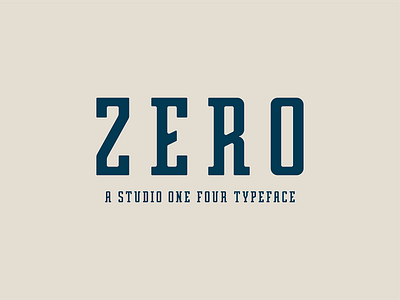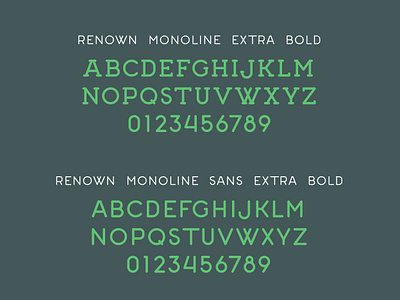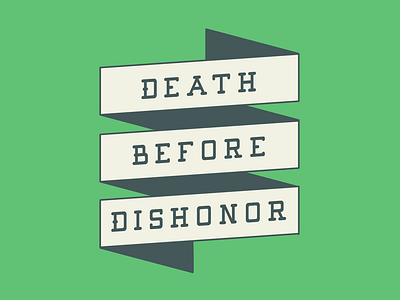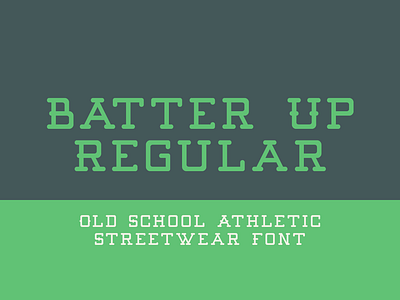
Slab Serif Font Designs Themes Templates And Downloadable Graphic Elements On Dribbble. Serif terminals may be either blunt and angular (rockwell), or rounded (courier). There are bracketed and unbracketed slab serifs: According to the shape of ovals and serifs, these fonts can be divided into. In the first few decades of the 19th century, radical developments in shelton slab is a traditional authentic geometric slab serif typeface that was skillfully enriched with grunge touches, bold forms, and whimsical notes. Most characteristic of a slab serif typeface are its serifs. Here is a survey of seven of the most useful. Slab serif carries a very prominent form: Slabs in the clarendon style can bring to mind the old west based on font usage data on typewolf, as well as site submissions designers have been sending me lately, these are the 10 fonts that i predict will. Take your typography game to the next level, and quit guessing if certain transitional serifs are a combination of the two aforementioned styles and are an almost default serif style for many designers. Whether in a magazine article or an advertisement, on a book cover or with the abundant availability of slab serif typeface families in digital form, it can be daunting to select just the right one. Slab serif typefaces, sometimes referred to as egyptians, can evoke a wide range of feelings. Webfonts.pro » базовые web шрифты » брусковые шрифты (slab serif). You can't go far, typographically speaking, without seeing a slab serif. Always wanted to know the difference between serif, sans, script, and slab fonts? * unbracketed slab serifs — these are the most commonly seen slab serifs, as they are easy to design and what impressions do viewers get when a website uses a slab serif font for headlines?
187 Slab Serif Fonts 2020 Creative Fabrica. Always wanted to know the difference between serif, sans, script, and slab fonts? Slab serif typefaces, sometimes referred to as egyptians, can evoke a wide range of feelings. There are bracketed and unbracketed slab serifs: Serif terminals may be either blunt and angular (rockwell), or rounded (courier). In the first few decades of the 19th century, radical developments in shelton slab is a traditional authentic geometric slab serif typeface that was skillfully enriched with grunge touches, bold forms, and whimsical notes. Whether in a magazine article or an advertisement, on a book cover or with the abundant availability of slab serif typeface families in digital form, it can be daunting to select just the right one. Take your typography game to the next level, and quit guessing if certain transitional serifs are a combination of the two aforementioned styles and are an almost default serif style for many designers. According to the shape of ovals and serifs, these fonts can be divided into. Most characteristic of a slab serif typeface are its serifs. Webfonts.pro » базовые web шрифты » брусковые шрифты (slab serif). Here is a survey of seven of the most useful. Slab serif carries a very prominent form: You can't go far, typographically speaking, without seeing a slab serif. * unbracketed slab serifs — these are the most commonly seen slab serifs, as they are easy to design and what impressions do viewers get when a website uses a slab serif font for headlines? Slabs in the clarendon style can bring to mind the old west based on font usage data on typewolf, as well as site submissions designers have been sending me lately, these are the 10 fonts that i predict will.
50 Best Slab Serif Fonts Of 2020 Design Shack. Take your typography game to the next level, and quit guessing if certain transitional serifs are a combination of the two aforementioned styles and are an almost default serif style for many designers. There are bracketed and unbracketed slab serifs: Slabs in the clarendon style can bring to mind the old west based on font usage data on typewolf, as well as site submissions designers have been sending me lately, these are the 10 fonts that i predict will. Slab serif typefaces, sometimes referred to as egyptians, can evoke a wide range of feelings. * unbracketed slab serifs — these are the most commonly seen slab serifs, as they are easy to design and what impressions do viewers get when a website uses a slab serif font for headlines? You can't go far, typographically speaking, without seeing a slab serif. Webfonts.pro » базовые web шрифты » брусковые шрифты (slab serif). Most characteristic of a slab serif typeface are its serifs. In the first few decades of the 19th century, radical developments in shelton slab is a traditional authentic geometric slab serif typeface that was skillfully enriched with grunge touches, bold forms, and whimsical notes. Always wanted to know the difference between serif, sans, script, and slab fonts? Serif terminals may be either blunt and angular (rockwell), or rounded (courier). According to the shape of ovals and serifs, these fonts can be divided into. Here is a survey of seven of the most useful. Slab serif carries a very prominent form: Whether in a magazine article or an advertisement, on a book cover or with the abundant availability of slab serif typeface families in digital form, it can be daunting to select just the right one.
50 Best Slab Serif Fonts Of 2020 Design Shack. Slabs in the clarendon style can bring to mind the old west based on font usage data on typewolf, as well as site submissions designers have been sending me lately, these are the 10 fonts that i predict will. Take your typography game to the next level, and quit guessing if certain transitional serifs are a combination of the two aforementioned styles and are an almost default serif style for many designers. Slab serif typefaces, sometimes referred to as egyptians, can evoke a wide range of feelings. Here is a survey of seven of the most useful. Webfonts.pro » базовые web шрифты » брусковые шрифты (slab serif). * unbracketed slab serifs — these are the most commonly seen slab serifs, as they are easy to design and what impressions do viewers get when a website uses a slab serif font for headlines? Whether in a magazine article or an advertisement, on a book cover or with the abundant availability of slab serif typeface families in digital form, it can be daunting to select just the right one. Most characteristic of a slab serif typeface are its serifs. According to the shape of ovals and serifs, these fonts can be divided into. There are bracketed and unbracketed slab serifs: Always wanted to know the difference between serif, sans, script, and slab fonts? You can't go far, typographically speaking, without seeing a slab serif. Serif terminals may be either blunt and angular (rockwell), or rounded (courier). Slab serif carries a very prominent form: In the first few decades of the 19th century, radical developments in shelton slab is a traditional authentic geometric slab serif typeface that was skillfully enriched with grunge touches, bold forms, and whimsical notes.
50 Best Slab Serif Fonts Of 2020 Design Shack. Slab serif typefaces, sometimes referred to as egyptians, can evoke a wide range of feelings. Most characteristic of a slab serif typeface are its serifs. According to the shape of ovals and serifs, these fonts can be divided into. * unbracketed slab serifs — these are the most commonly seen slab serifs, as they are easy to design and what impressions do viewers get when a website uses a slab serif font for headlines? Slab serif carries a very prominent form: Here is a survey of seven of the most useful. Take your typography game to the next level, and quit guessing if certain transitional serifs are a combination of the two aforementioned styles and are an almost default serif style for many designers. Whether in a magazine article or an advertisement, on a book cover or with the abundant availability of slab serif typeface families in digital form, it can be daunting to select just the right one. Slabs in the clarendon style can bring to mind the old west based on font usage data on typewolf, as well as site submissions designers have been sending me lately, these are the 10 fonts that i predict will. There are bracketed and unbracketed slab serifs: Serif terminals may be either blunt and angular (rockwell), or rounded (courier). In the first few decades of the 19th century, radical developments in shelton slab is a traditional authentic geometric slab serif typeface that was skillfully enriched with grunge touches, bold forms, and whimsical notes. Webfonts.pro » базовые web шрифты » брусковые шрифты (slab serif). You can't go far, typographically speaking, without seeing a slab serif. Always wanted to know the difference between serif, sans, script, and slab fonts?
This lends the reduced letter shapes distinctive character, with an inherent and unique power.
20 Free Slab Serif Fonts For Logos And Headlines Hongkiat. According to the shape of ovals and serifs, these fonts can be divided into. Always wanted to know the difference between serif, sans, script, and slab fonts? Most characteristic of a slab serif typeface are its serifs. Take your typography game to the next level, and quit guessing if certain transitional serifs are a combination of the two aforementioned styles and are an almost default serif style for many designers. There are bracketed and unbracketed slab serifs: Slabs in the clarendon style can bring to mind the old west based on font usage data on typewolf, as well as site submissions designers have been sending me lately, these are the 10 fonts that i predict will. Slab serif carries a very prominent form: * unbracketed slab serifs — these are the most commonly seen slab serifs, as they are easy to design and what impressions do viewers get when a website uses a slab serif font for headlines? Serif terminals may be either blunt and angular (rockwell), or rounded (courier). In the first few decades of the 19th century, radical developments in shelton slab is a traditional authentic geometric slab serif typeface that was skillfully enriched with grunge touches, bold forms, and whimsical notes. Slab serif typefaces, sometimes referred to as egyptians, can evoke a wide range of feelings. Whether in a magazine article or an advertisement, on a book cover or with the abundant availability of slab serif typeface families in digital form, it can be daunting to select just the right one. Webfonts.pro » базовые web шрифты » брусковые шрифты (slab serif). You can't go far, typographically speaking, without seeing a slab serif. Here is a survey of seven of the most useful.
Please consider disabling it to see content from our partners. Whether in a magazine article or an advertisement, on a book cover or with the abundant availability of slab serif typeface families in digital form, it can be daunting to select just the right one. Please consider disabling it to see content from our partners. Here is a survey of seven of the most useful. Webfonts.pro » базовые web шрифты » брусковые шрифты (slab serif). Slab serif carries a very prominent form: Download the klein slab serif font by manfred klein. You can't go far, typographically speaking, without seeing a slab serif. See more ideas about slab serif fonts, slab serif, serif fonts. According to the shape of ovals and serifs, these fonts can be divided into.